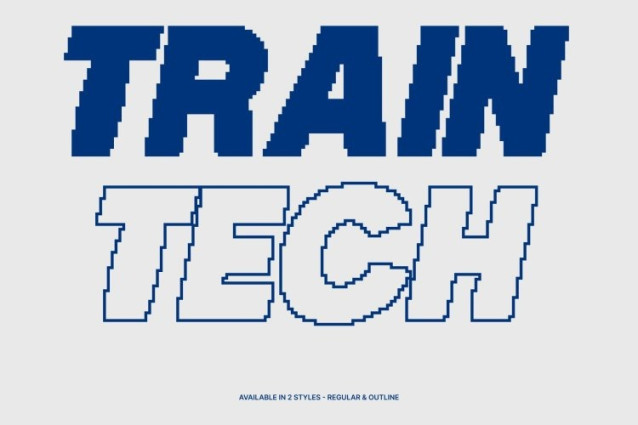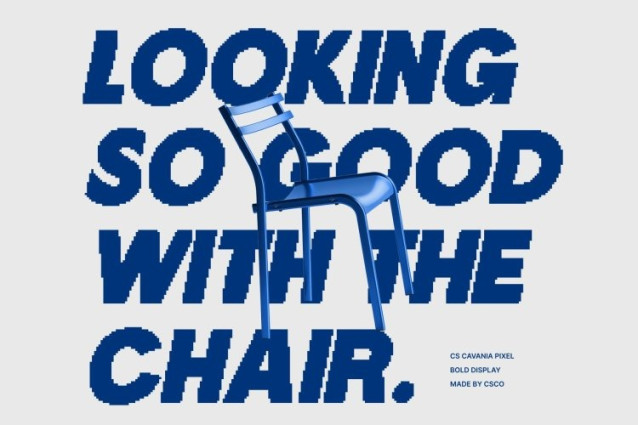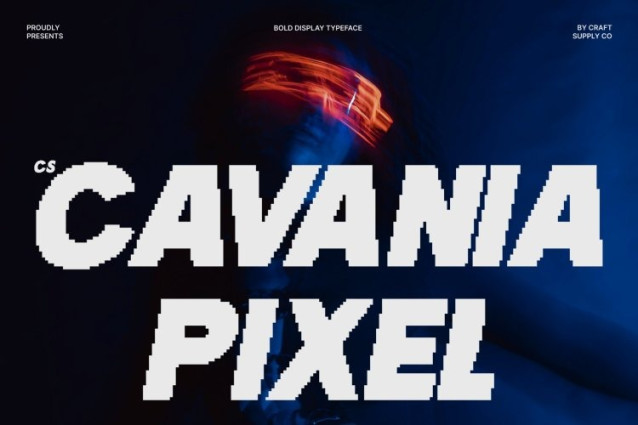
CS Cavania Pixel Font
CS Cavania Pixel Font This is a bold sans-serif display font built to command attention through strong thickness and confident structure. Enhanced with pixel detailing, it brings an old-digital and retro-tech nuance to a modern typographic form. This fusion of clarity and pixel character makes it ideal for designs that want to feel bold, striking, and visually assertive.
Strong and Bold Design with Pixel Character
The heavy weight of this font delivers strength and clarity, while its pixel construction adds a distinctive digital texture. This combination makes the font perfect for emphasizing important information. Whether used for headlines, banners, or logos, it ensures your message feels powerful, direct, and unmistakably eye-catching.
Modern Clean Form with Retro Digital Feel
As a sans-serif font, this font maintains a clean and modern silhouette. The pixel-style edges introduce a nostalgic digital aesthetic reminiscent of early screens and retro interfaces, creating a balanced look that feels both contemporary and old-school at the same time.
Ideal for Attention-Grabbing Display Use
This font excels in applications where visibility and impact matter most. From posters and signage to digital interfaces and branding, its bold form and pixel detail help designs stand out instantly. It’s a versatile display font for projects that require strong emphasis with a modern retro digital edge.